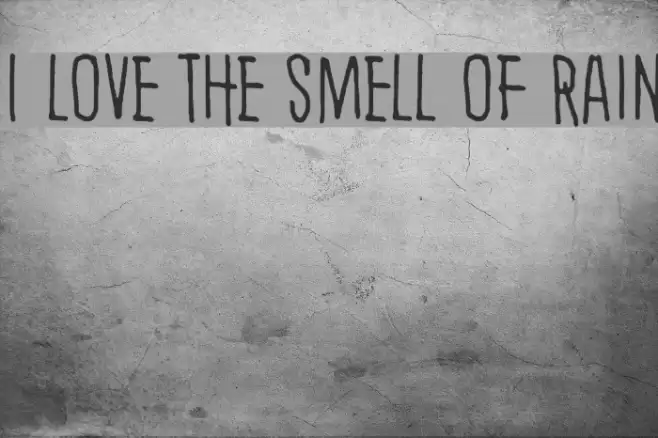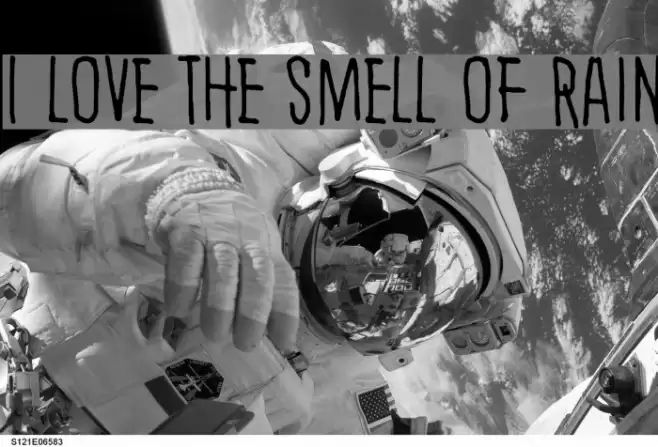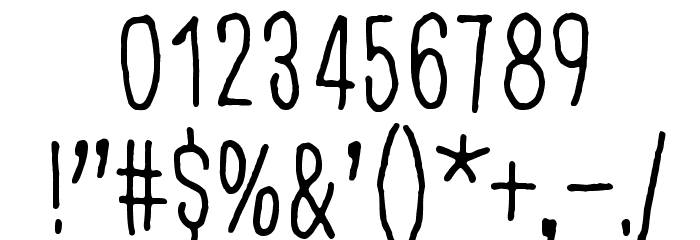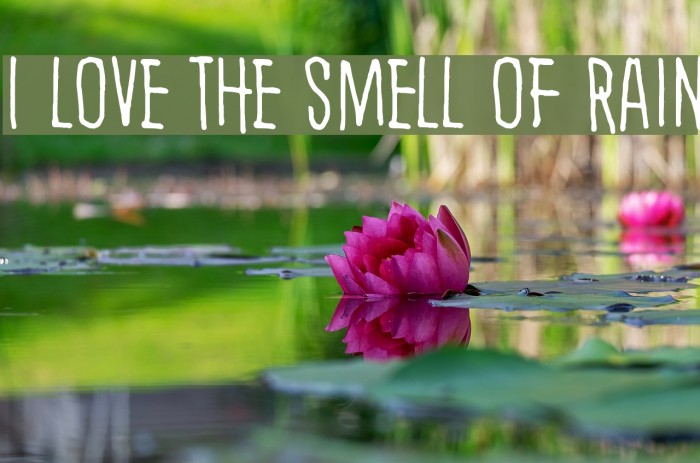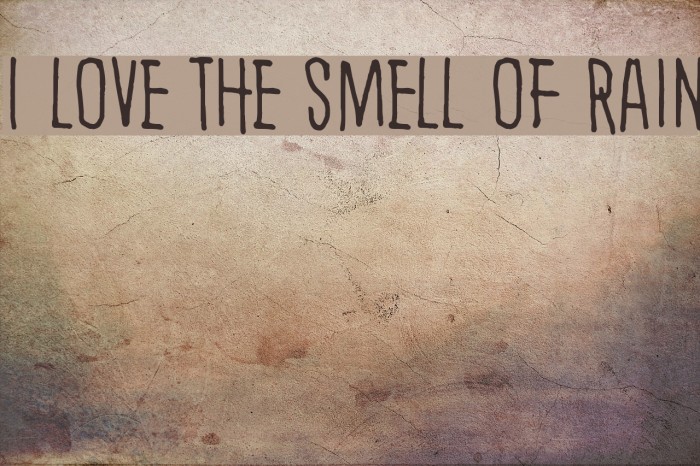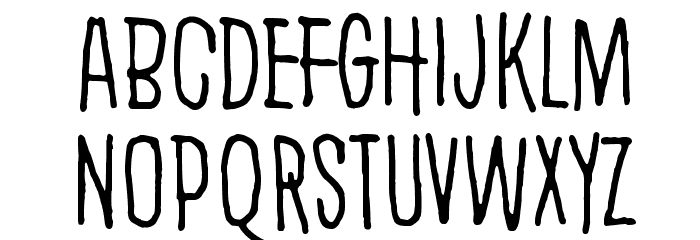
I love the smell of rain Font
I love the smell of rain Description
This font features a playful and hand-drawn aesthetic, characterized by its uneven strokes and organic feel. The letters are tall and slightly narrow, with a casual, informal style that suggests a handwritten touch. The uppercase and lowercase letters maintain a consistent style, with a slightly whimsical appearance. The numbers and special characters complement the alphabet with the same hand-drawn quality, adding to the font's overall charm. This font is ideal for projects that require a personal, approachable, and creative look.
A playful, hand-drawn font with an informal, organic style from Uncategorized fonts.
- Proposed Projects: Ideal for greeting cards, children's books, casual branding, and creative posters.
- Overall Style: Casual, Playful
- Use Case: Headlines, Logos, Creative projects